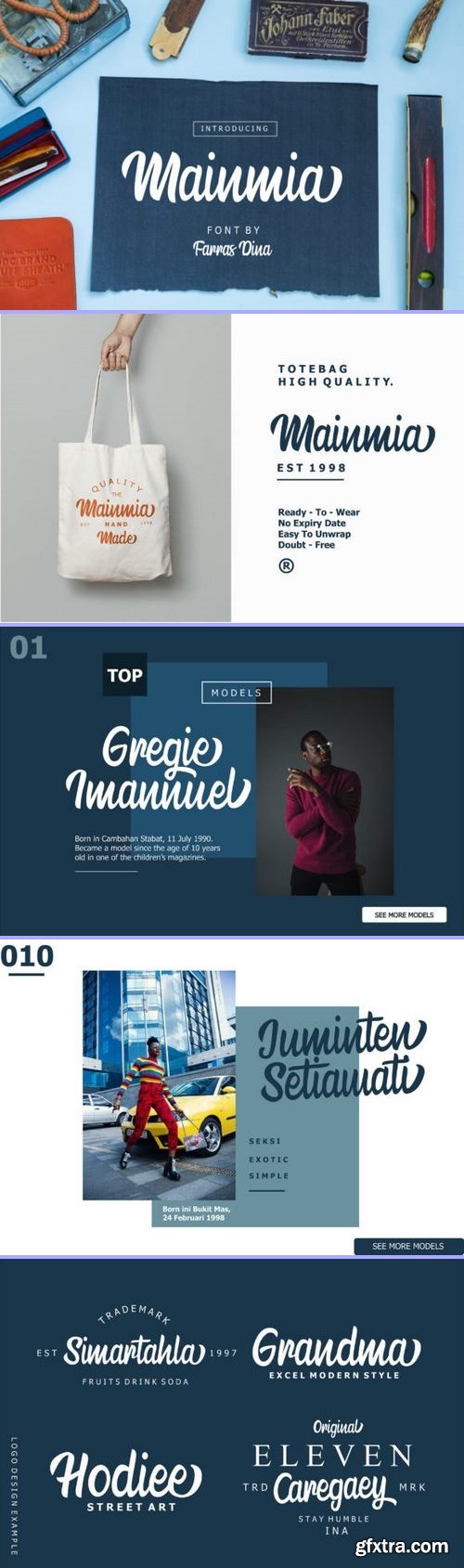
Hello Budiesss!!! Mainmia is back. Mainmia handwritten typeface. This font is good for Brand design, t-shirt, logo, labels, posters and etc. Mainmia typeface include Uppercase, Lowercase, Numerals & Punctuations for combine your design.Thank you and Enjoy !!!